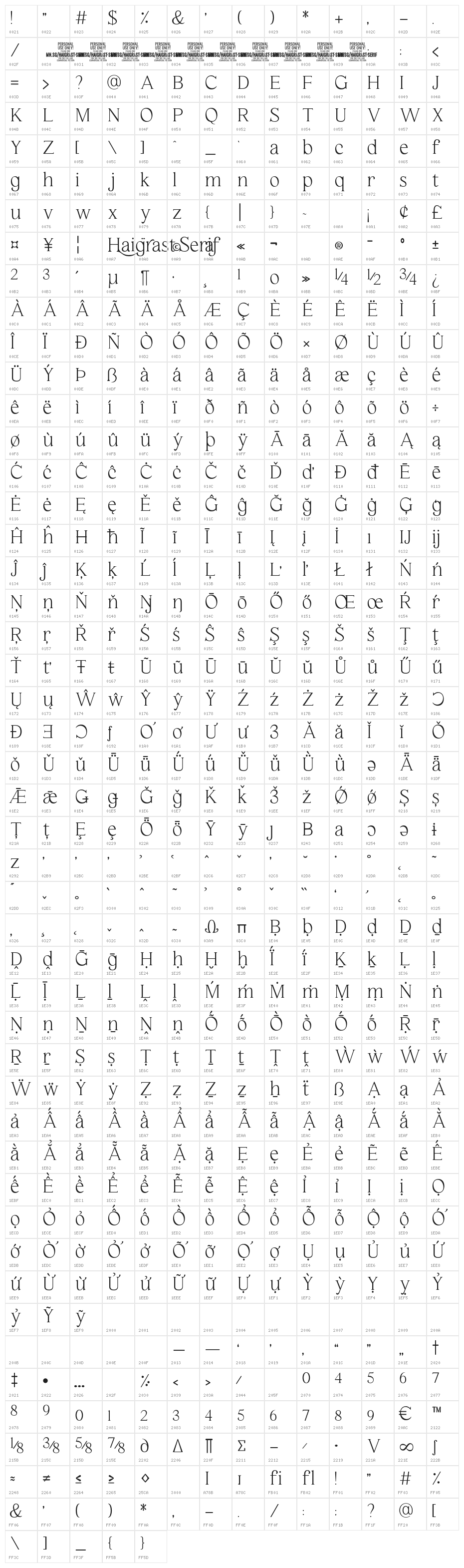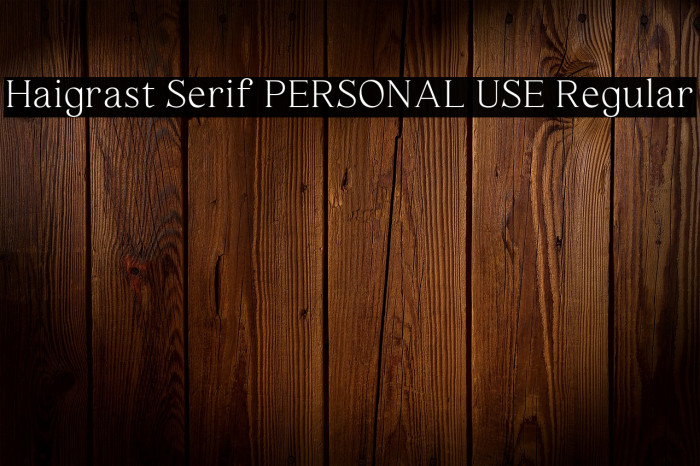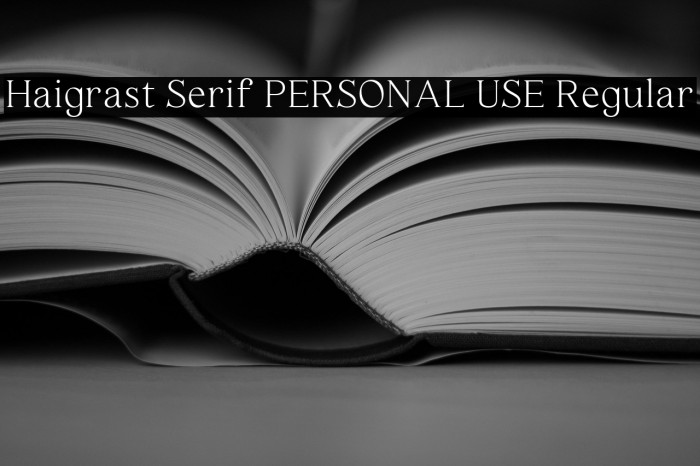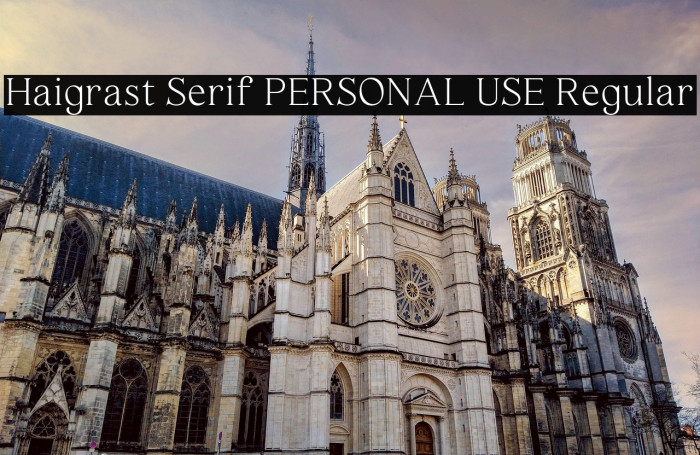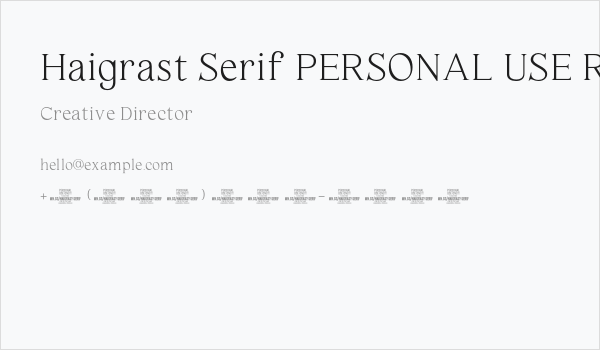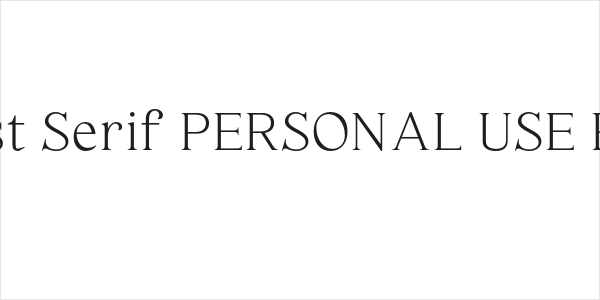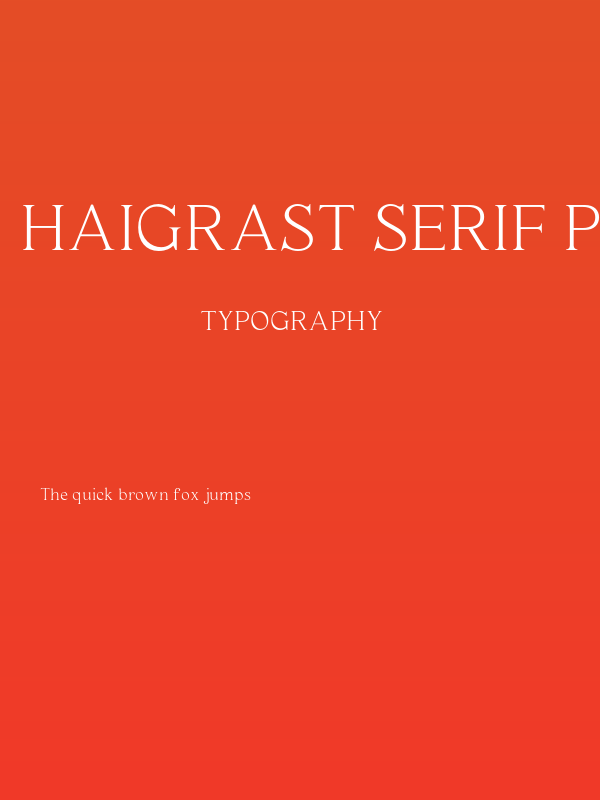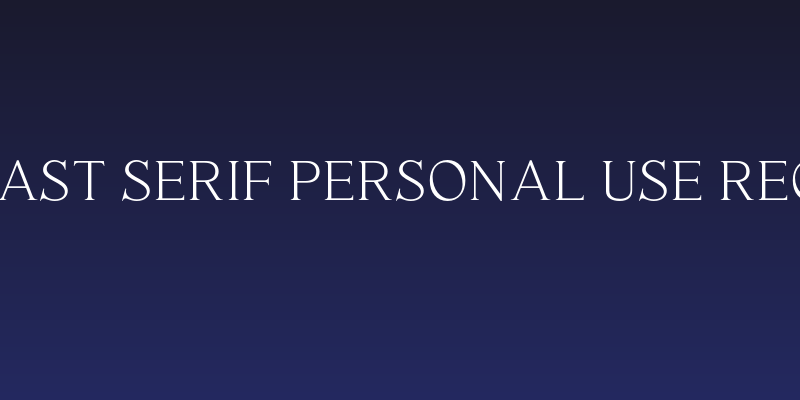
Haigrast Serif PERSONAL USE Regular Font
Haigrast Serif PERSONAL USE Regular Description
This font features a classic serif style with elegant and refined strokes. The uppercase letters are tall and commanding, while the lowercase letters maintain a balanced and readable form. The serifs are pronounced, adding a touch of sophistication and tradition. The numerals are consistent with the overall style, ensuring clarity and uniformity. Special characters are well-integrated, maintaining the font's cohesive appearance. This typeface is ideal for projects that require a touch of elegance and readability.